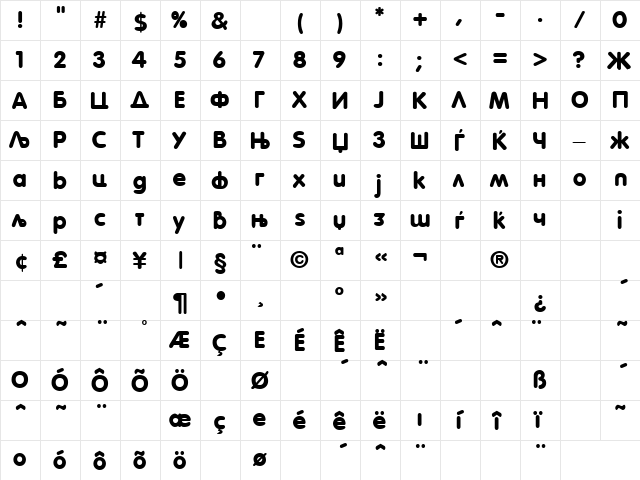
VOGUE kir Bold
Design Context for VOGUE kir Typeface
VOGUE kir is a composed and adaptable typeface that performs quietly and consistently across a wide range of design contexts. Its bold stroke weight gives it real presence on the page.
Pro Tip: Use VOGUE kir in both headline and body roles to test its range before committing to a single application.